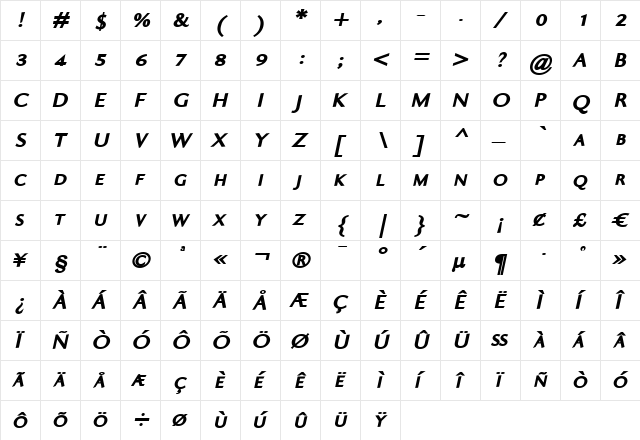
Ela Sans Black Caps Italic Font Preview
Ela Sans Black Caps Italic
Ela Sans Black Caps Italic Font Details
Design Context for Ela Sans Black Caps Typeface
Ela Sans Black Caps offers clean, dependable letterforms without strong stylistic allegiance, making it a practical choice for designers who need flexibility. The slanted form adds forward momentum and visual energy.
Pro Tip: Use Ela Sans Black Caps for emphasis, pull quotes, and subheadings where its slanted energy can add rhythm to the layout.